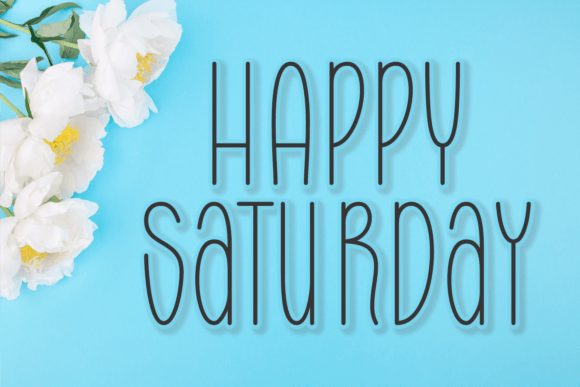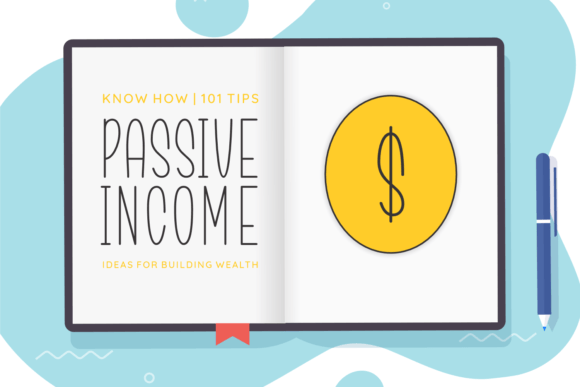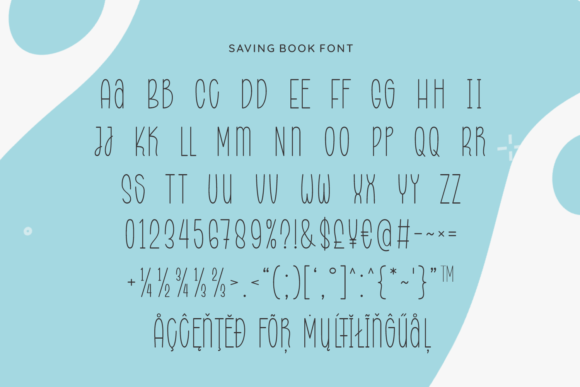
Introduction to Saving Book Font
Saving Book is a sweet and friendly handwritten font.
Whatever the topic, this font will be a wonderful asset to your font library, as it has the potential to enhance any creation .
Key Features of Saving Book Font
Why Choose Saving Book Font?